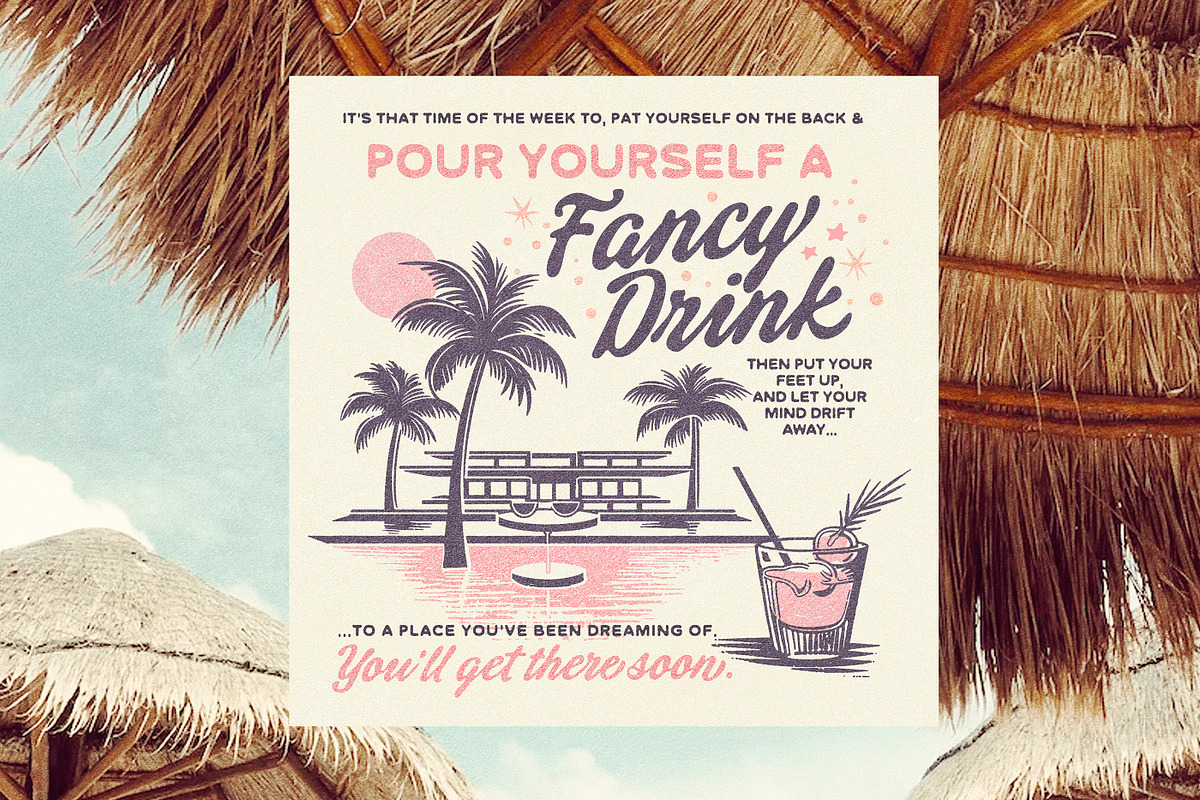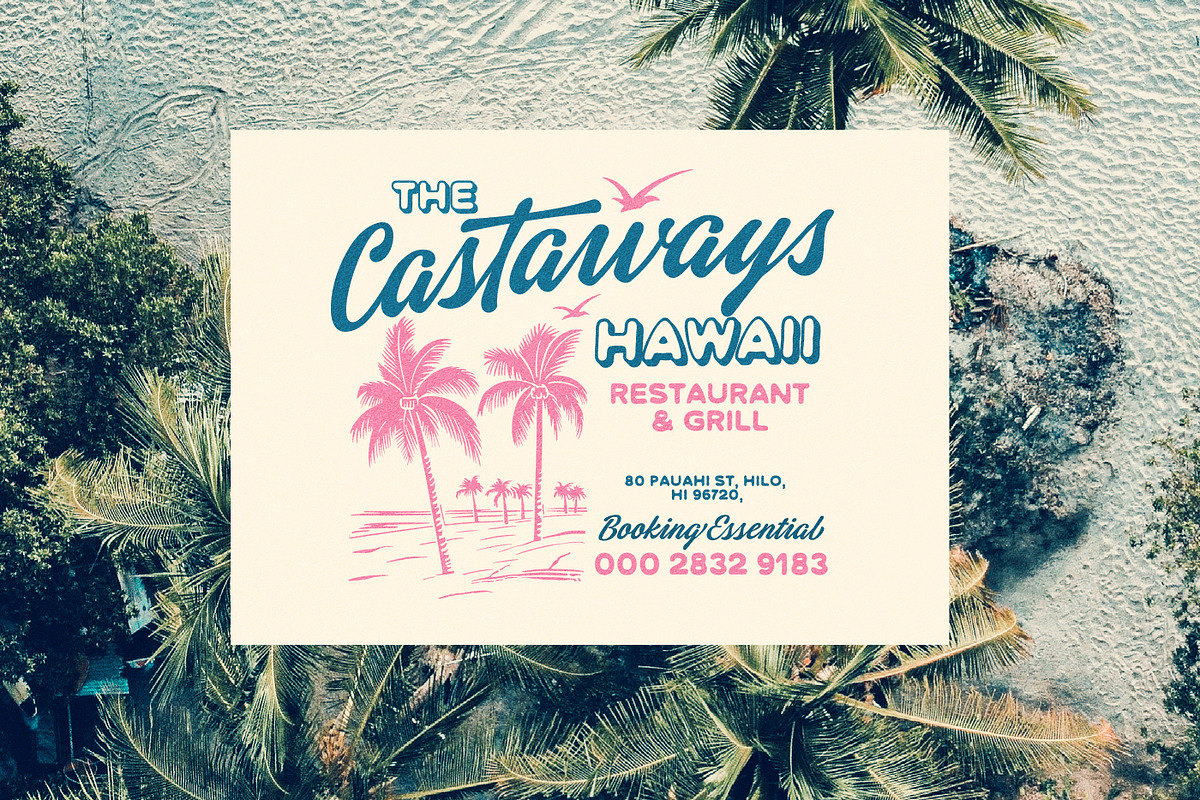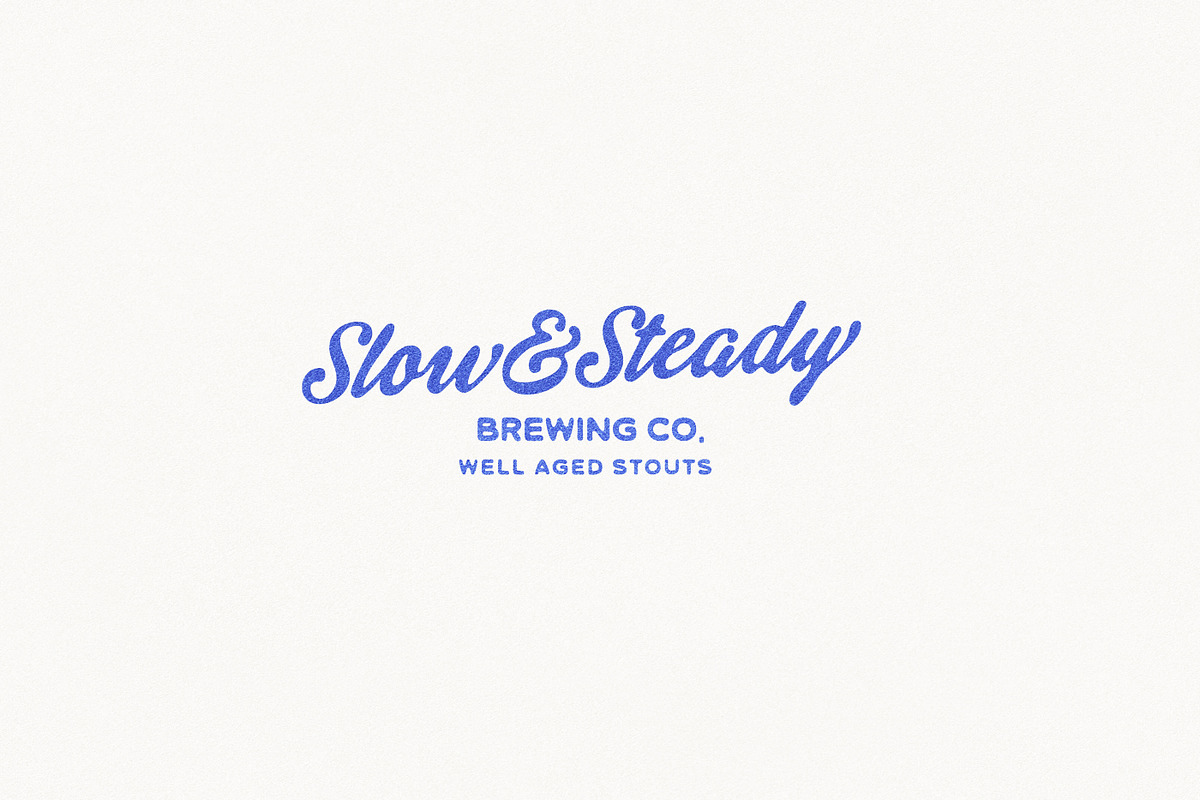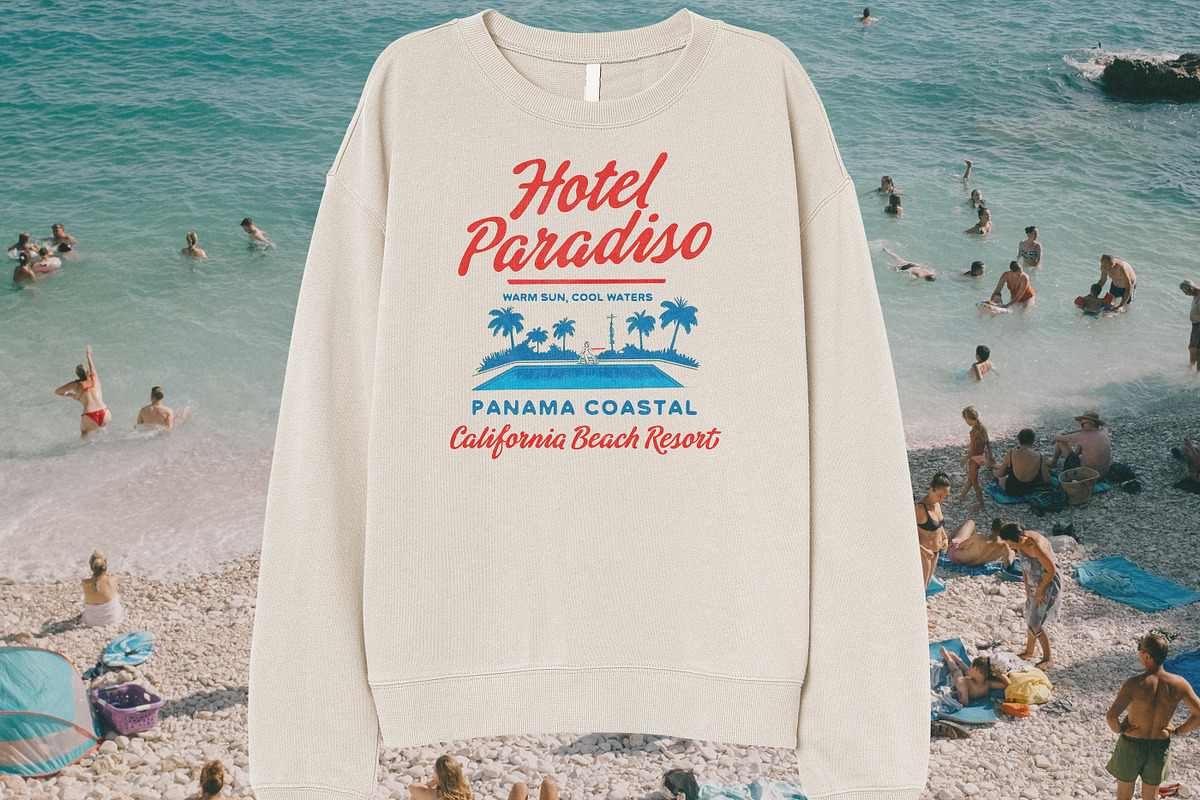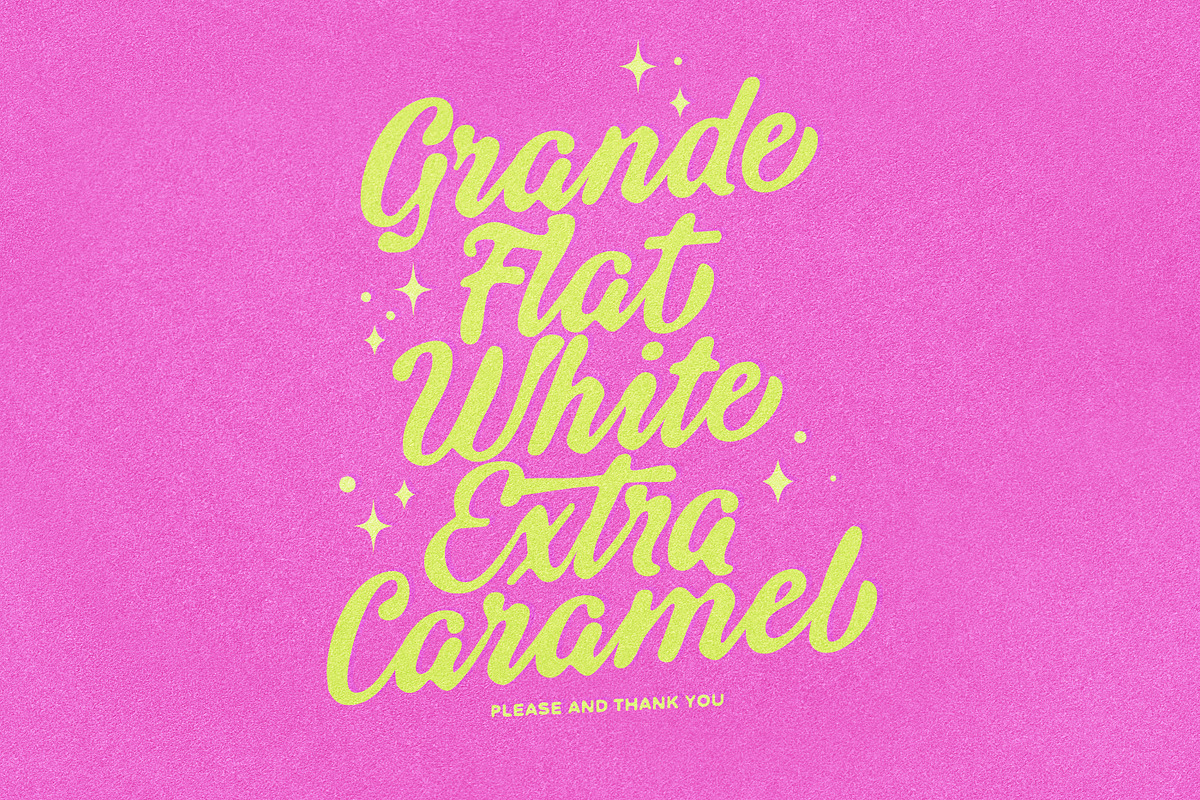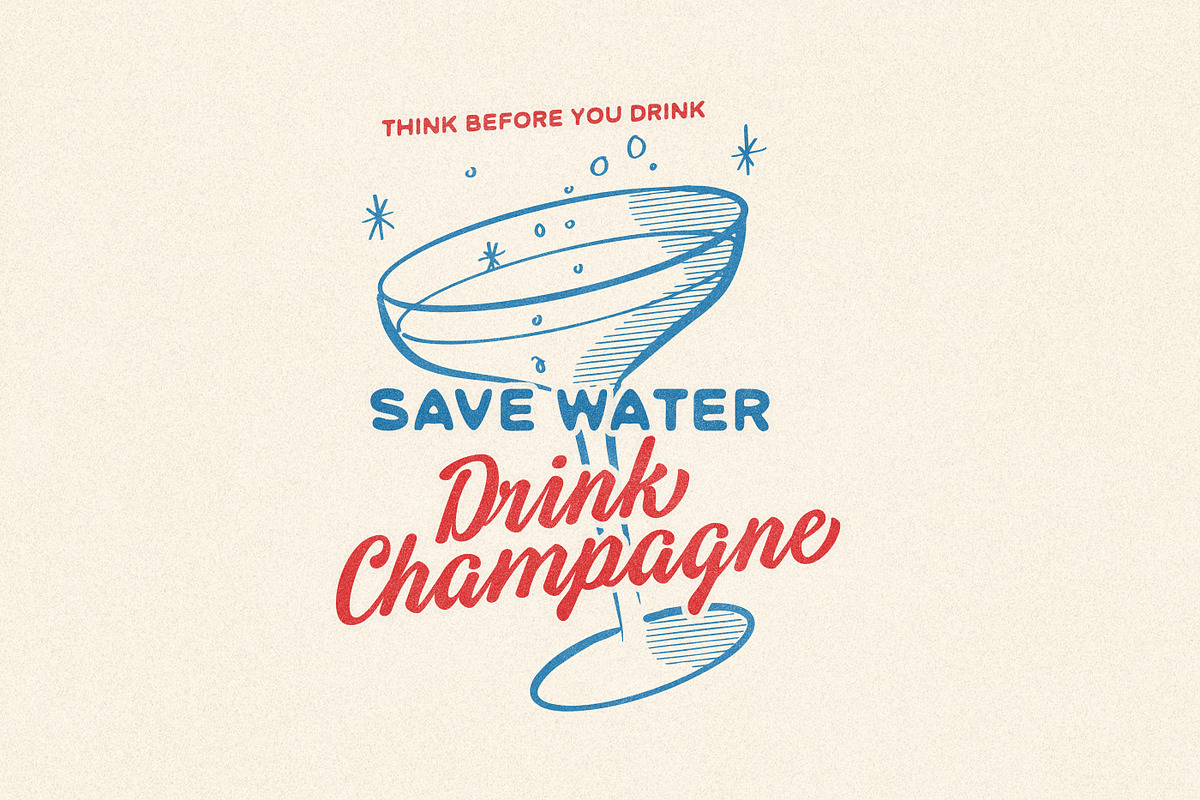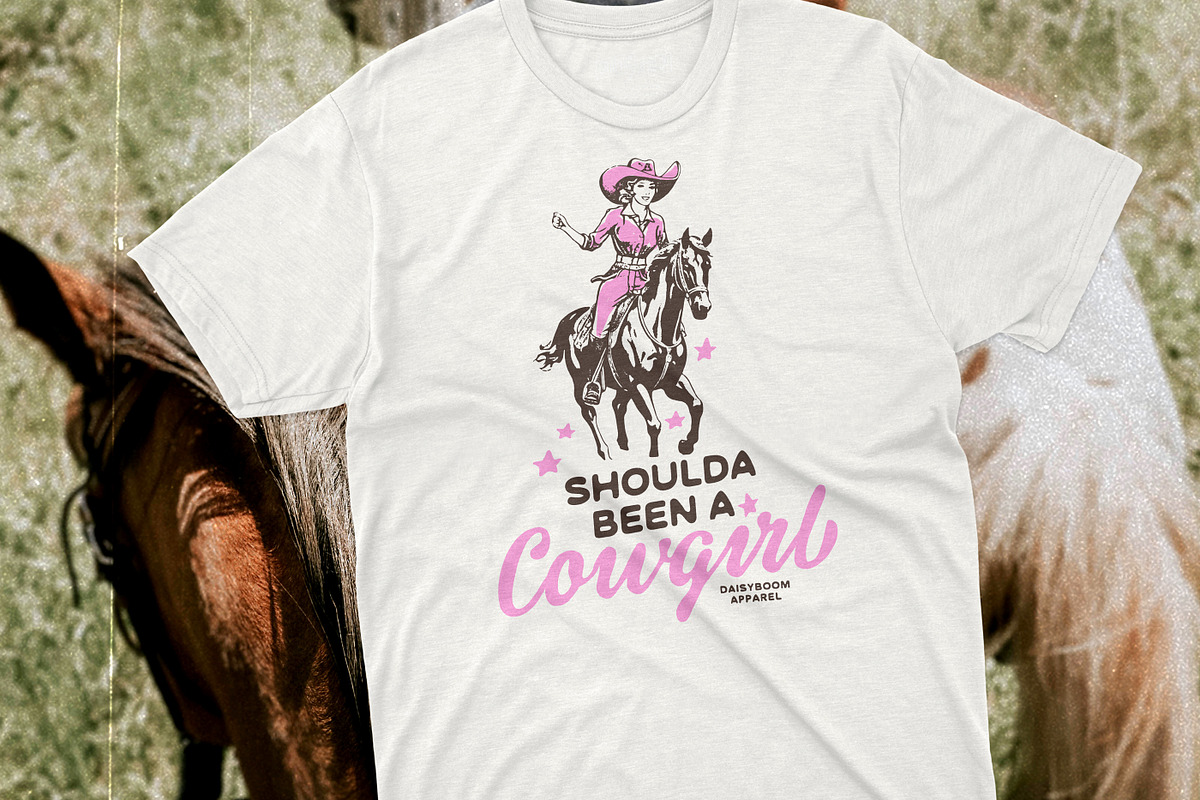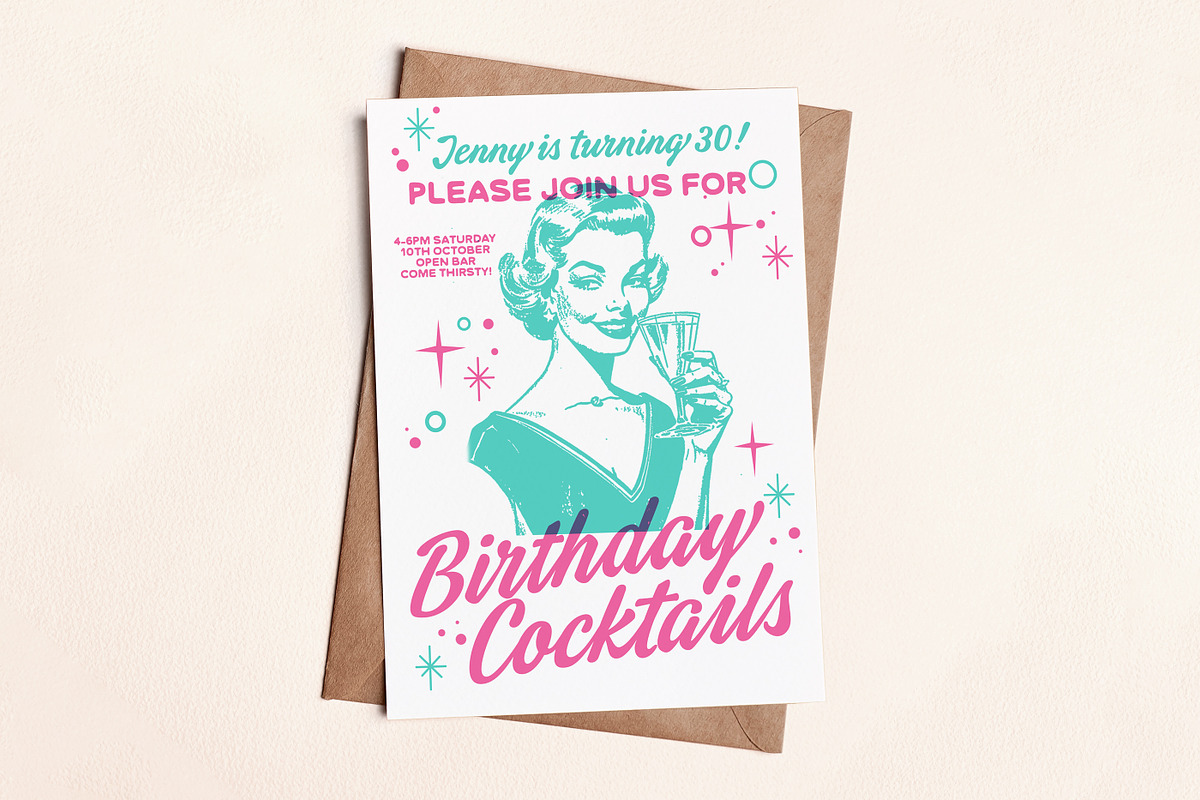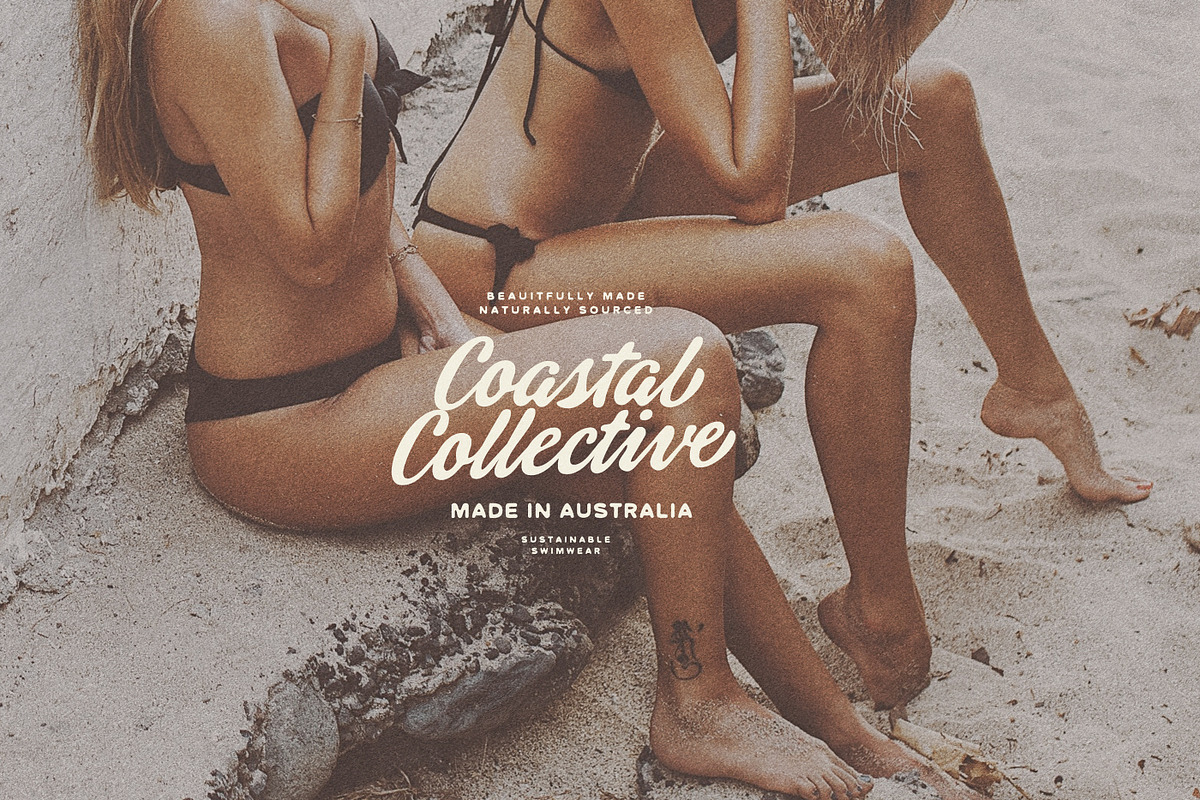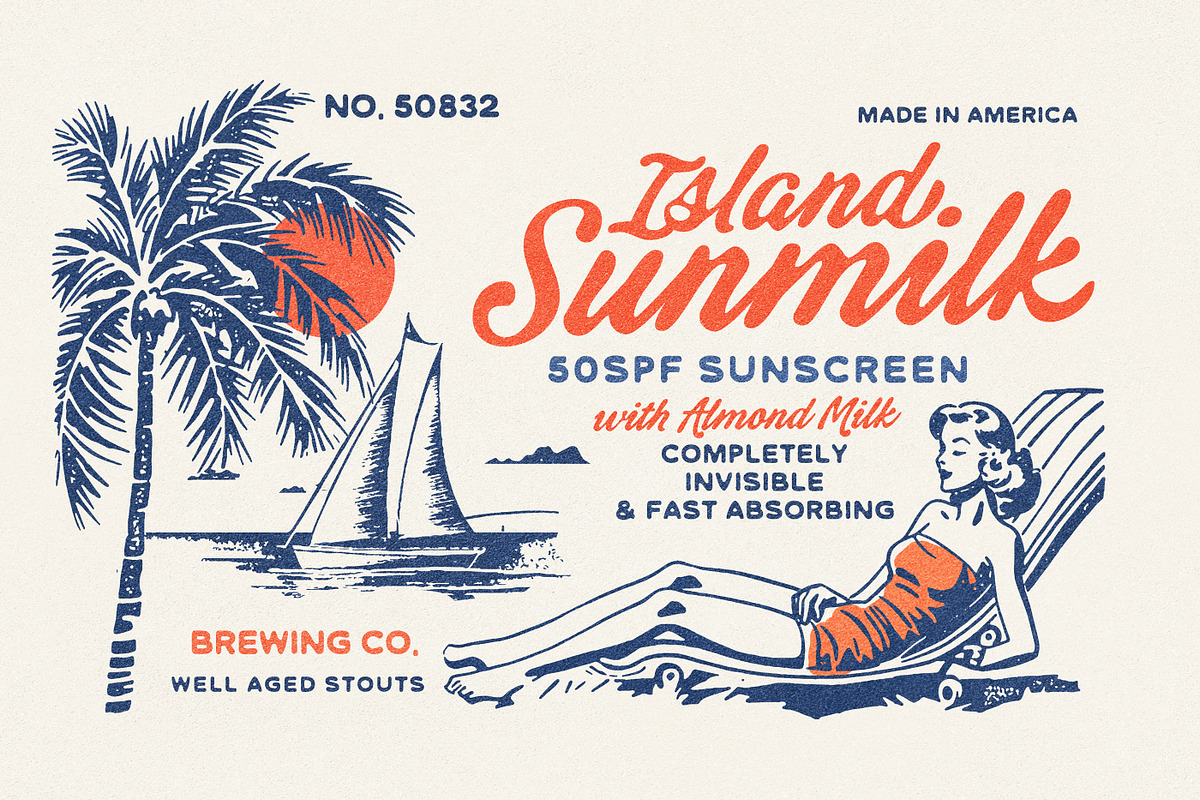
Tequila Sunrise Typeface Pack
Grab yourself an umbrella drink, and transport yourself back to a time when life seemed a little more carefree.
Say hello to Tequila Sunrise!
A Typeface consisting of a Retro-Modern Script and a Inky Sans to match. The Script has some beautiful alternates and ligatures built into its Opentype Features, to really make her stand out from the rest.
The Script comes in a clean version, an inky version, and a more inky version - take your pick :) Each variation has a slanted version included too.
The Inky imperfect sans, also has a ' dropshadow' style variation to add even more interest to your design.